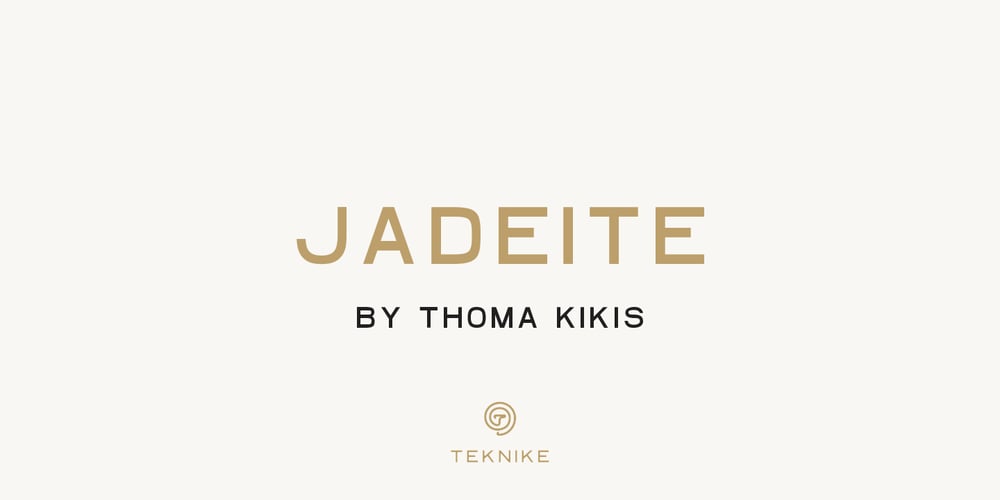
Jadeite Font Family was designed by Thoma Kikis and published by TEKNIKE. Jadeite contains 10 styles and family package options. Note: This family only contains Capital lettersJadeite is a geometric monospaced display font. The typeface has a distinct style inspired by the Mid-Century Modern era and designed to be easy to read. The Jadeite name comes from a mineral form of jade and also represents a color of green, reminiscent and popular of the 1950’s era. Jadeite is great for display work, quotes, invitations, film credits, fashion, architecture, posters and headings.